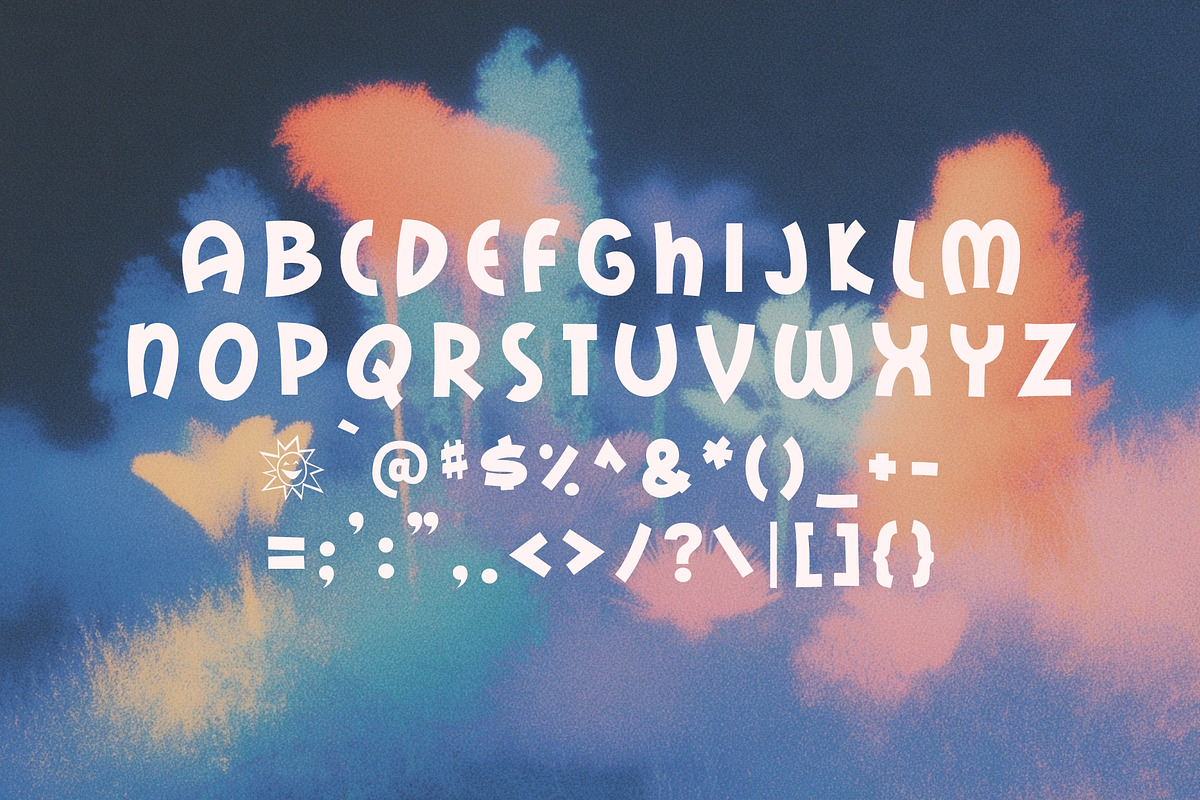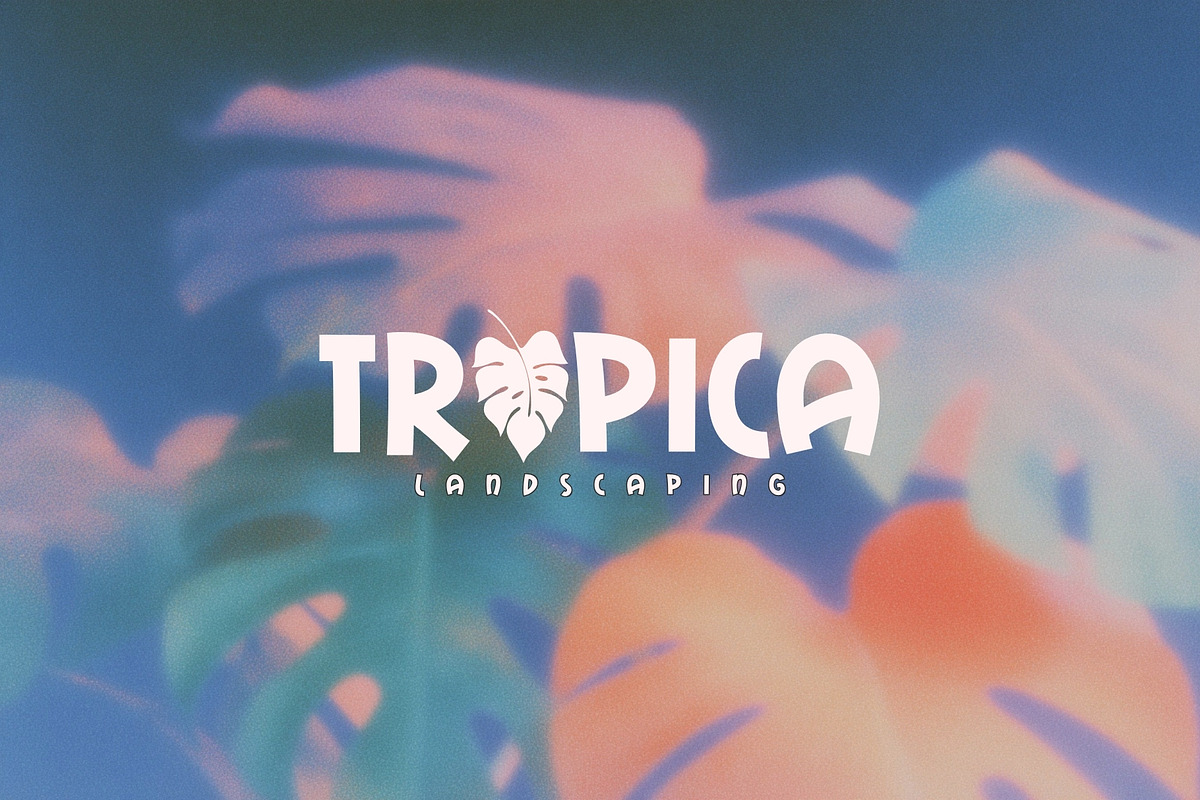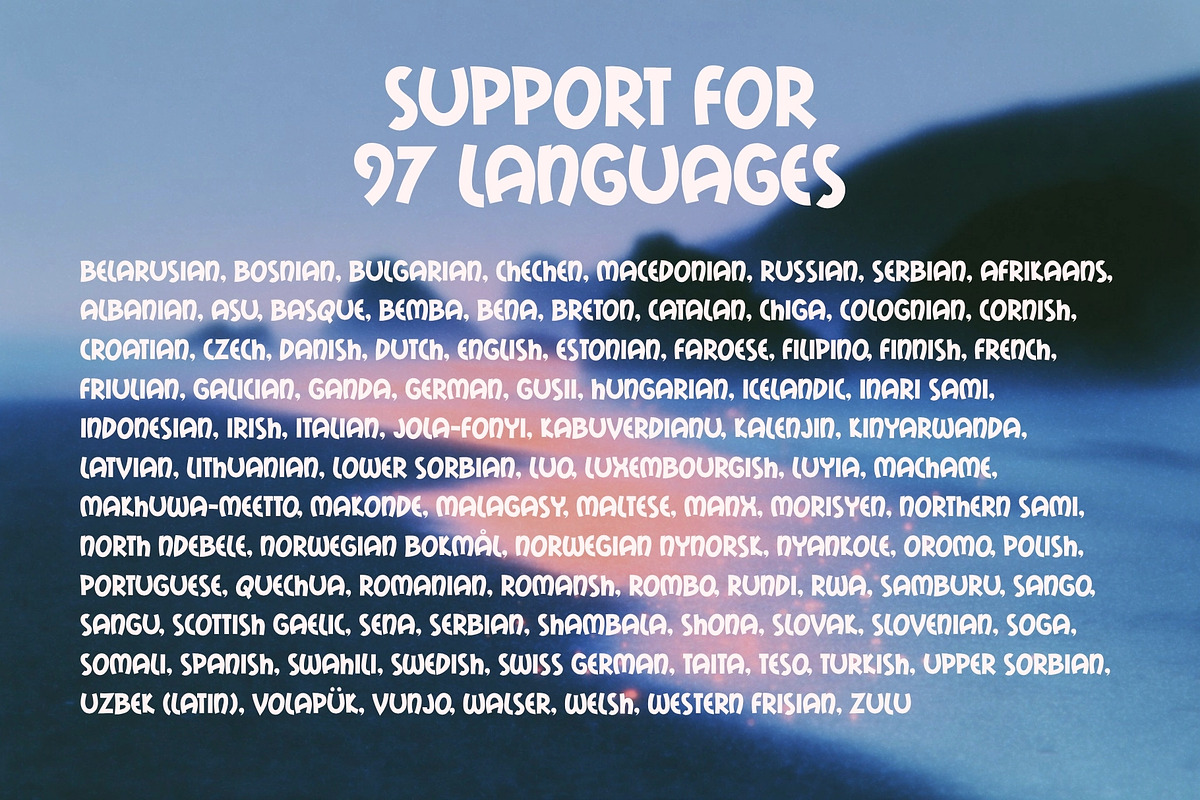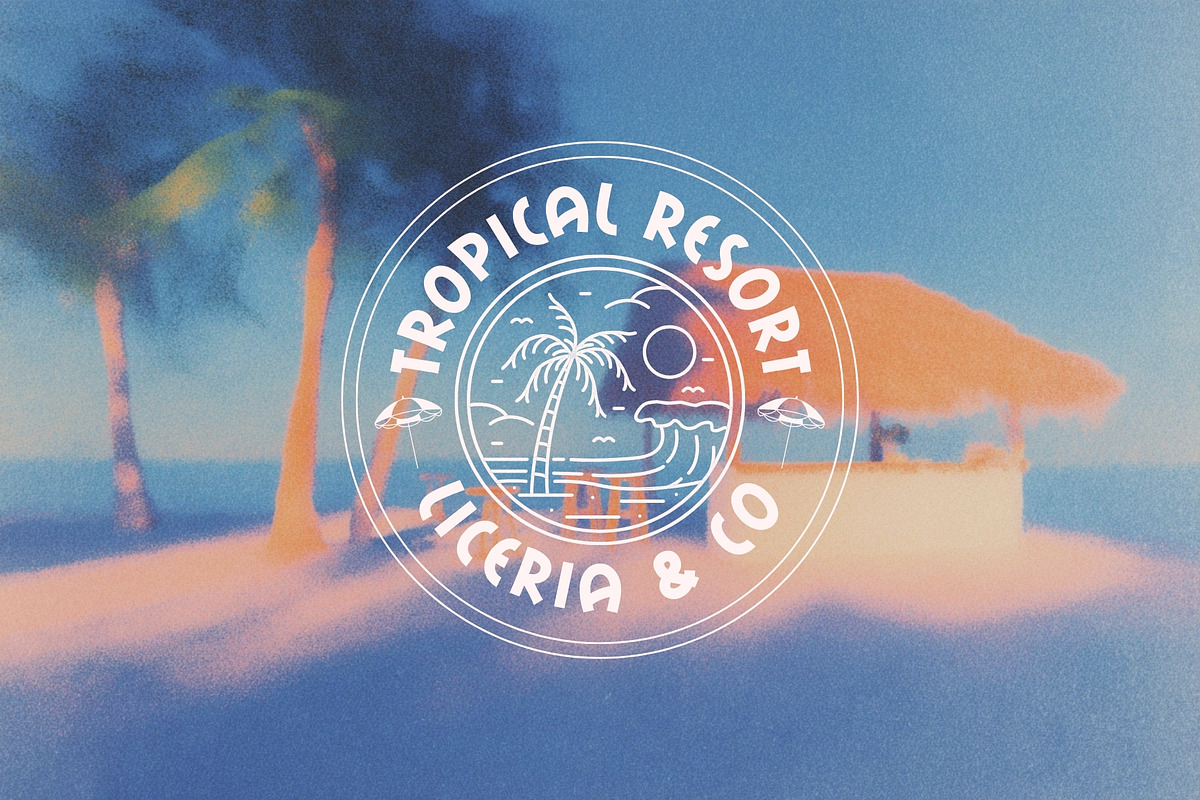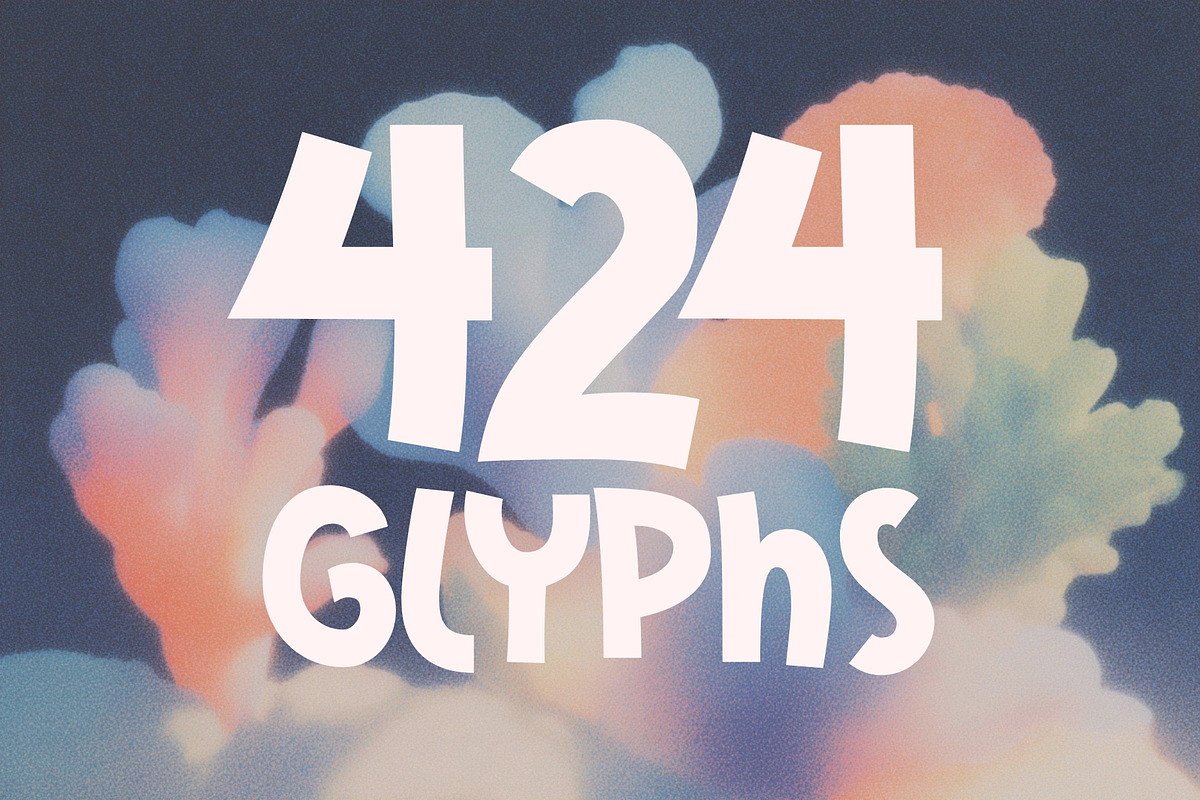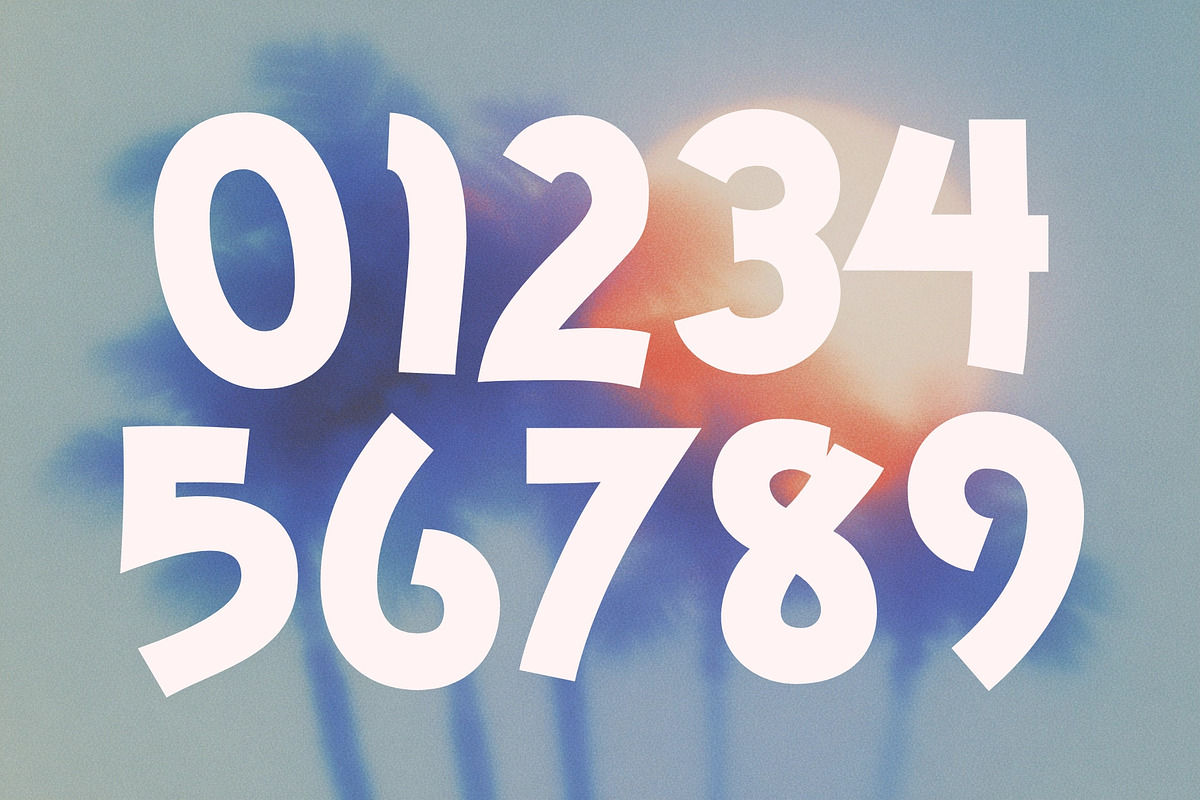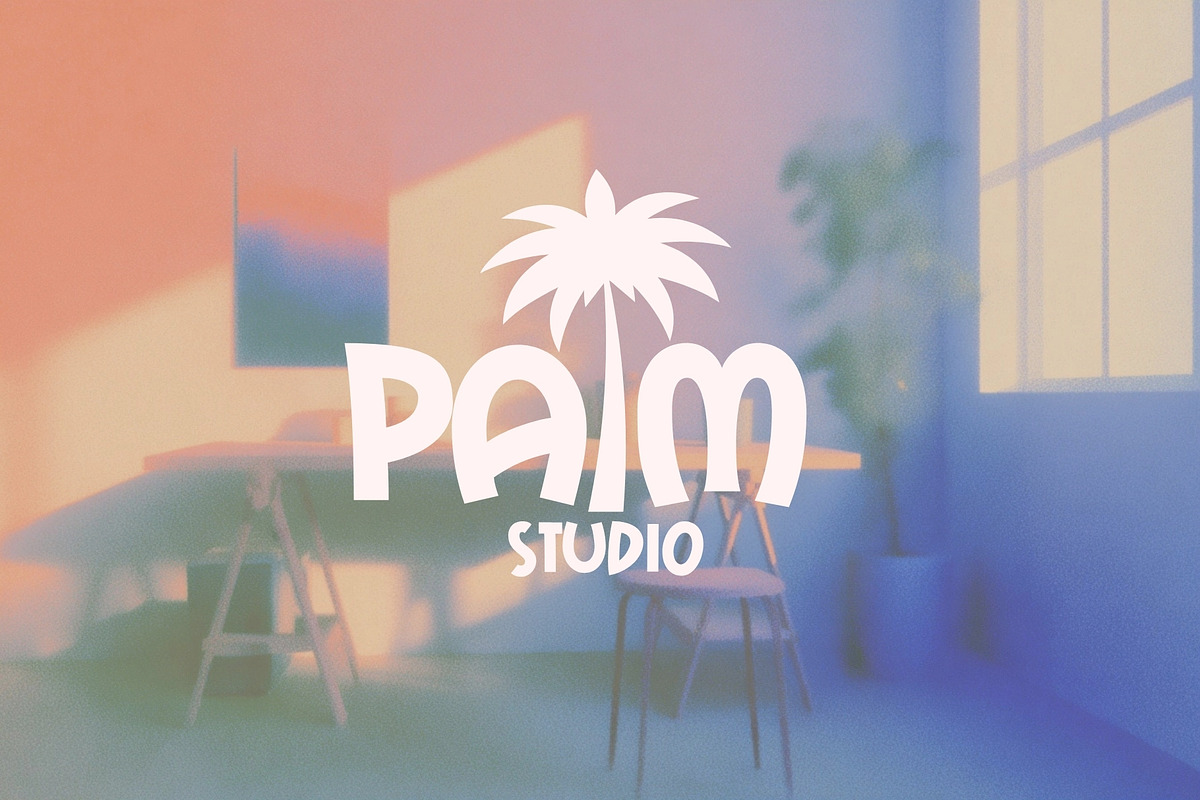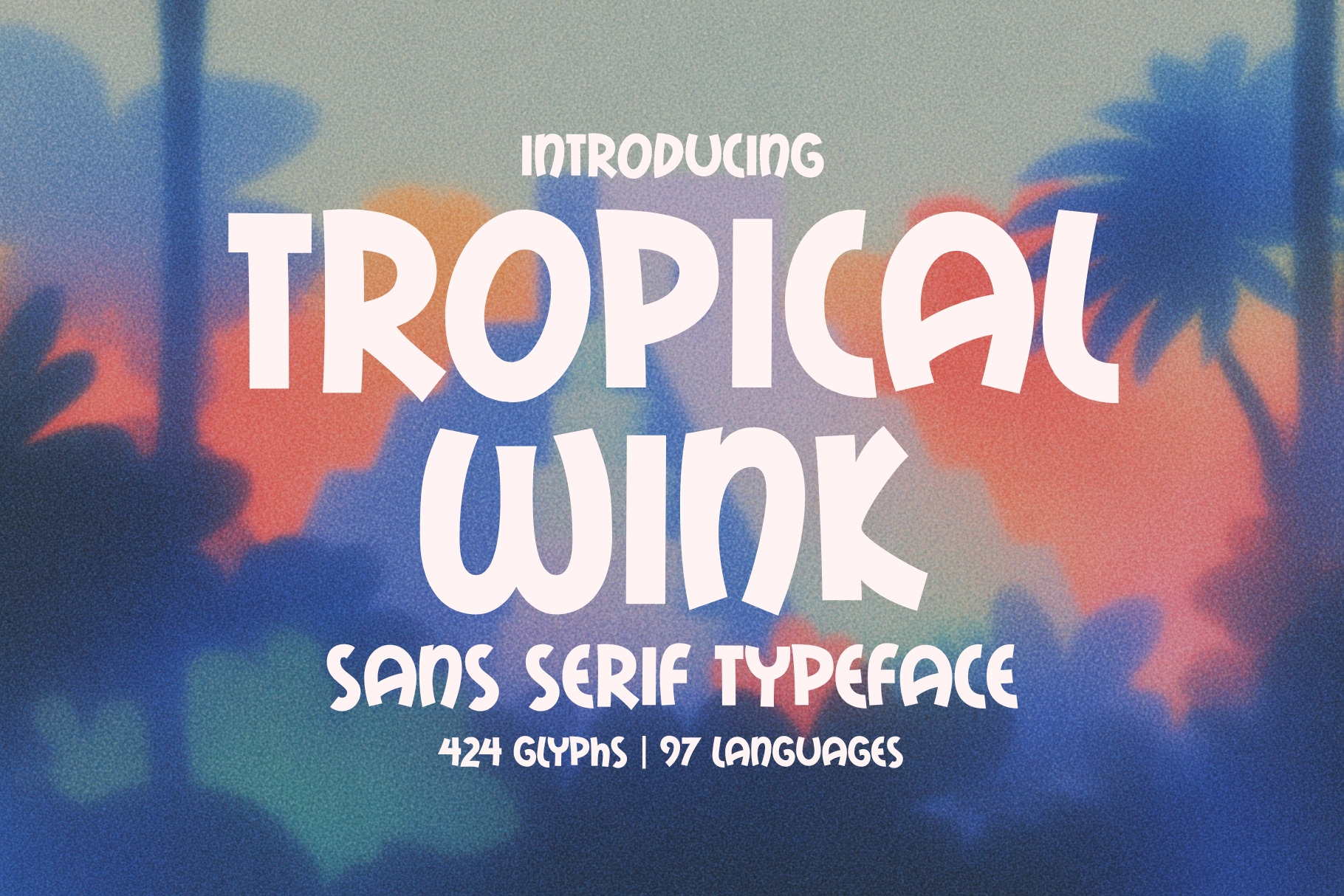
Tropical Wink - Fun Summer Font
Bring the sunshine to your designs with Tropical Wink, a bold and playful sans serif typeface that radiates fun. With its thick, quirky letters and cheerful personality, this font is perfect for capturing the carefree spirit of summer. Whether you’re designing whimsical posters, classroom projects, party invitations, children’s books, or eye-catching branding, Tropical Wink adds a splash of joy and vibrancy to any creation.
Its chunky strokes and friendly curves make it easy to read while keeping things lighthearted and engaging. From sunny beach vibes to school-themed designs, Tropical Wink is your go-to font when you want your message to shine with warmth and personality.
Get ready to wink at creativity—because with Tropical Wink, every project feels like a vacation!